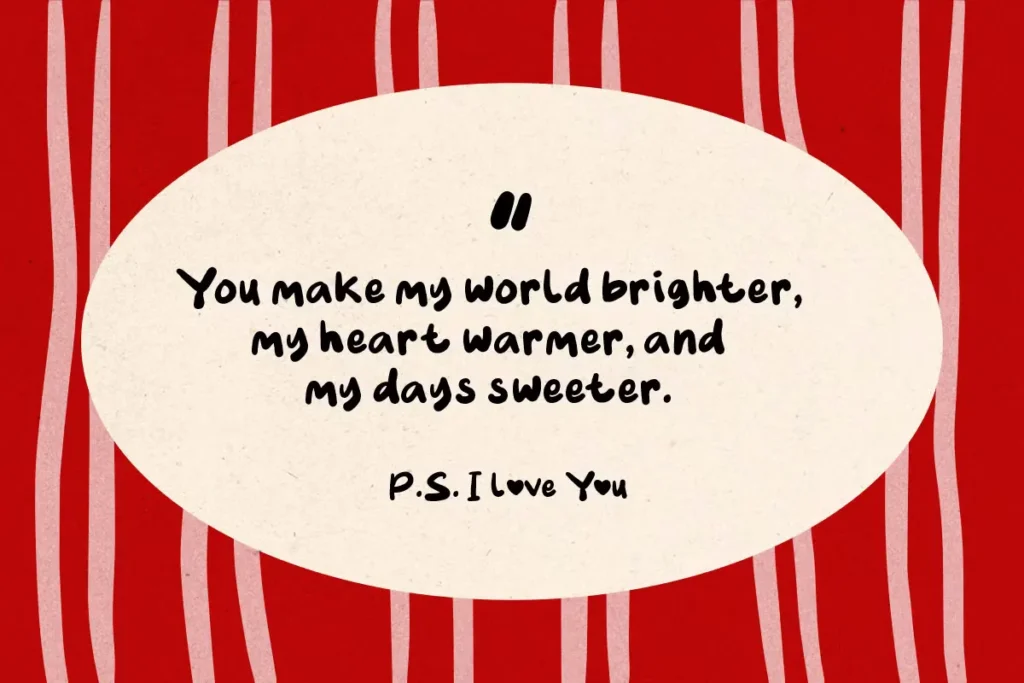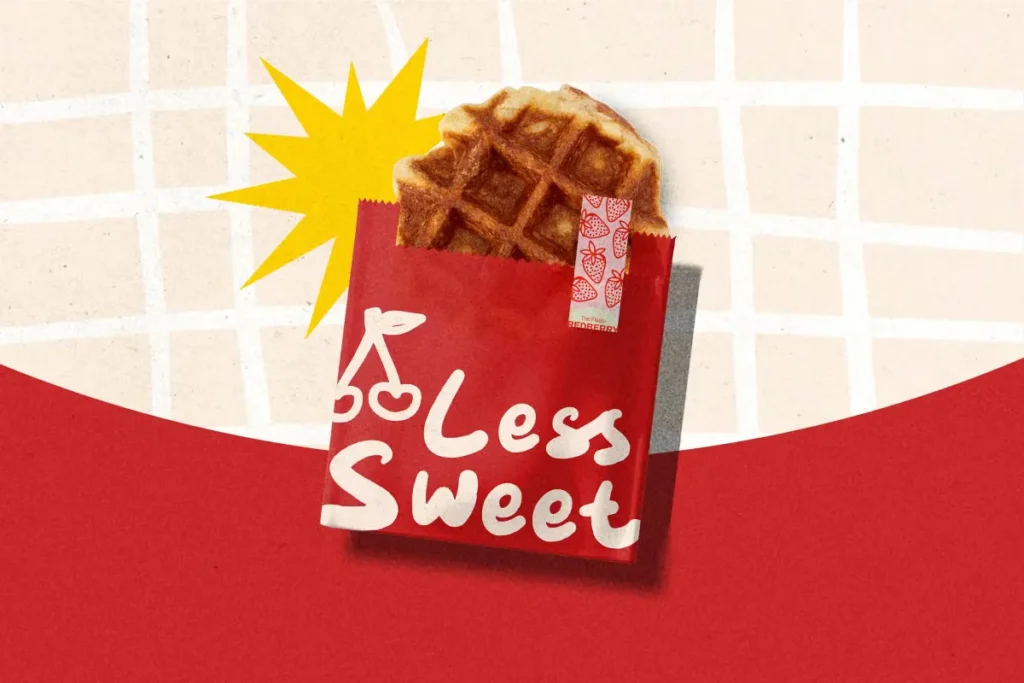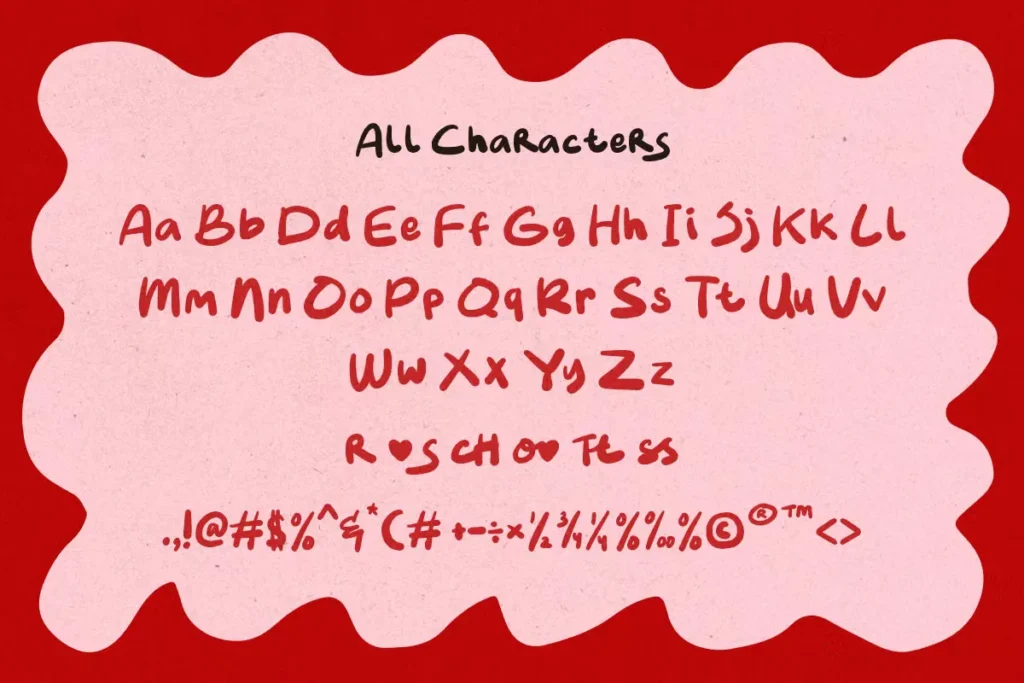
Noona Louise is a beautifully crafted, free romantic handwritten font that brings warmth, elegance, and personality to any creative project. Designed with smooth curves, natural strokes, and a charming handwritten style, this font captures the feel of authentic penmanship while maintaining a polished and modern appearance. Its soft and feminine character makes it an excellent choice for designers looking to add a personal touch to their work.
Whether you’re creating branding materials, wedding invitations, greeting cards, social media graphics, product packaging, logos, or lifestyle blogs, Noona Louise delivers a stylish and effortless handwritten aesthetic. The font’s playful yet sophisticated design works perfectly with modern, minimalist, and cozy design themes.
Noona Louise includes uppercase and lowercase letters, numbers, punctuation, alternates, ligatures, multilingual support, and PUA encoding, making it versatile and easy to use across various design applications. The additional stylistic features help create unique lettering combinations that enhance the overall visual appeal of your projects.
Noona Louise Free Romantic Handwritten Font